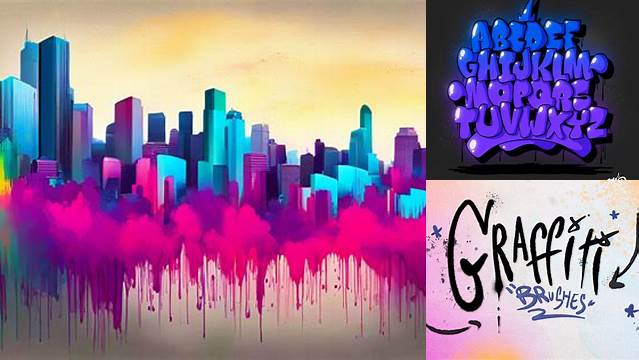
Hey guys! If you're looking to add some serious street style to your digital art, you've come to the right place. Graffiti fonts can bring that raw, edgy vibe to your Procreate projects, and the best part? There are tons of amazing options available for free! In this article, we'll dive deep into the world of free graffiti fonts, showing you where to find them, how to install them in Procreate, and how to use them to create killer designs. Get ready to unleash your inner street artist!
Why Use Graffiti Fonts in Procreate?
Let's talk about why graffiti fonts are such a game-changer for your Procreate creations. First off, graffiti fonts instantly inject a sense of urban authenticity into your work. Whether you're designing a poster, creating digital lettering, or just experimenting with different styles, these fonts can add a layer of depth and attitude that's hard to achieve with more conventional typefaces. Imagine your artwork suddenly popping with the bold, expressive strokes of a true street artist – that's the power of a great graffiti font!
Moreover, using graffiti fonts can significantly speed up your workflow. Instead of painstakingly drawing each letter by hand (which, let's be honest, can be super time-consuming), you can simply type out your text and apply a graffiti font to get that hand-drawn look in seconds. This is especially useful for projects with tight deadlines or when you need to iterate quickly on different design ideas. Plus, with so many free options available, you can easily experiment with a variety of styles without breaking the bank.
Another cool aspect of graffiti fonts is their versatility. They're not just for stereotypical "urban" designs. You can use them to create eye-catching logos, striking social media graphics, unique t-shirt designs, and so much more. The key is to think outside the box and find creative ways to incorporate these fonts into your overall design. For example, you could pair a bold graffiti font with a clean, minimalist background to create a striking contrast, or use it to add a touch of rebellion to an otherwise corporate-looking project. Remember, the best designs are often the ones that break the rules and push the boundaries of what's expected. So go ahead, get experimental, and see what amazing things you can create with free graffiti fonts in Procreate!
Top Websites to Download Free Graffiti Fonts
1001 Fonts: This site is a treasure trove of free fonts, with a dedicated section for graffiti styles. The sheer volume of fonts can be a bit overwhelming, but the search filters make it easy to narrow down your options. You can search by style, weight, and other criteria to find the perfect font for your project. Just like with other font websites, always check the license agreement to ensure that you're allowed to use the font for your intended purpose.
When browsing these websites, pay close attention to the font previews and descriptions. Look for fonts that match the overall style and tone of your project. And don't be afraid to download a few different fonts and experiment with them in Procreate to see which ones work best. Happy hunting!
By following these tips, you can use free graffiti fonts to create stunning designs that capture the raw, edgy energy of street art. So go ahead, unleash your creativity, and see what amazing things you can create!